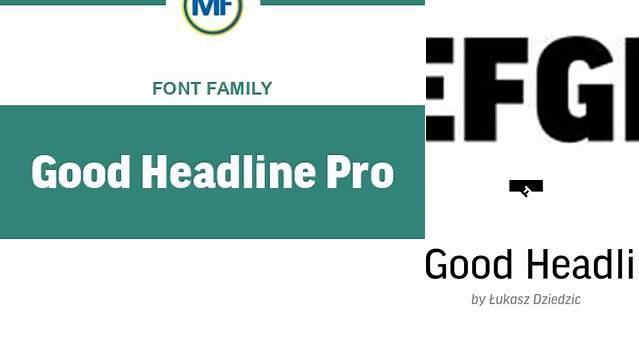
Hey guys! If you're on the hunt for a killer font that'll make your headlines pop, you've landed in the right spot. We're diving deep into the world of Good Headline Pro, a font that's become a favorite for designers and marketers alike. We'll cover everything from where to snag a free download to how to use it effectively in your projects. So, buckle up, because we're about to unlock the secrets to typography that grabs attention! This article is your go-to resource for all things related to Good Headline Pro – including how to ensure you're getting a legit, safe download. It is also the perfect way to make your content easily readable and SEO-friendly. This is a thorough guide to the font itself, its features, and how it can revolutionize your design projects. We will discuss the importance of choosing the right font, particularly when it comes to headlines, and show you why Good Headline Pro is an excellent choice. Whether you are a seasoned designer or just starting out, this guide will help you understand and use this versatile font to its full potential. We'll navigate the legal aspects of font downloads, discuss licensing, and share tips on how to ensure you're getting the font safely. Because, let's be real, nobody wants to accidentally download something nasty when they are looking for a beautiful font. Moreover, this guide will equip you with the knowledge and resources to make the most of this font and elevate your design work. We will cover the best practices and considerations for using Good Headline Pro in various design projects. Finally, we'll help you understand how to install and use the font on different platforms. From understanding the features of Good Headline Pro to making informed decisions about its use, we've got you covered. So, let's get started with this comprehensive guide to Good Headline Pro!
What is Good Headline Pro? Unveiling the Font's Essence
Alright, let's get down to the basics. Good Headline Pro isn't just any font; it's a design powerhouse specifically crafted for headlines and display text. Think of it as the rockstar of the font world, designed to command attention and leave a lasting impression. Its bold, clean lines and modern aesthetic make it perfect for grabbing eyeballs on websites, social media, posters, and any other place where you need a headline that speaks volumes. The core of Good Headline Pro lies in its versatility. It's a font that adapts beautifully to different design styles, whether you're aiming for a minimalist look or something more vibrant and playful. Its readability is another major plus, ensuring that your message is clear and easy to understand, even at a large size. We'll delve into the specific features, but understand that it's a font built to perform. Good Headline Pro shines when it comes to creating a strong visual impact. Designed with readability in mind, it ensures that your message is not just seen, but also understood. Its clean and modern design makes it suitable for various applications, from website headlines to advertising materials. Understanding these aspects will give you a solid foundation for making the most of the font. The key is in its design; it's not just about aesthetics. It also makes your content stand out. So if you're serious about creating headlines that resonate, Good Headline Pro should definitely be on your radar. Its ability to communicate effectively and look great doing it is a key feature. It's not just a font; it's a statement, and a useful tool for any designer looking to create compelling visuals. It is the perfect example of form meeting function, ensuring your message is both stylish and effective.
Now, let's peek under the hood and check out what makes Good Headline Pro tick. This font boasts some killer features that make it a top choice for designers. Here are some of the standout characteristics:
- Boldness: As the name suggests, it's all about making a statement. This font is typically offered in a range of weights, from regular to extra bold, allowing you to control the visual weight of your headlines. This helps to make sure your headline stands out, and that your message is clear.
- Clarity: Readability is key, and Good Headline Pro excels here. Its clean and clear design ensures that your text is easy to read, even at larger sizes. It allows your audience to absorb information quickly and efficiently.
- Modern Aesthetic: It has a contemporary look that feels fresh and up-to-date. This is important for modern design. It makes your designs look relevant, and is perfect for projects that require a clean, professional feel.
- Versatility: This font plays well with others! It can be paired with a wide range of fonts, both serif and sans-serif, making it a versatile tool for various design projects. This flexibility allows you to create cohesive designs. This is essential for designers looking to build their projects with different styles.
- Multiple Weights and Styles: Often available in various weights (light, regular, bold, etc.) and styles (italic, condensed), giving you flexibility to customize your headlines and create visual interest. These different options allow you to tailor your headlines to your specific needs. They can also help in creating visual interest.
These features collectively make Good Headline Pro a must-have in your font library. Whether you're designing a website, creating marketing materials, or crafting social media graphics, this font gives you the power to create headlines that capture attention and leave a lasting impact. The modern, clean aesthetic ensures your designs are always on-trend and visually appealing. Understanding these key features helps you to effectively use the font in your projects.
- Personal vs. Commercial Use: This is the big one. Personal use licenses let you use the font for non-commercial projects, like personal blogs, school projects, or hobby-related designs. Commercial licenses allow you to use the font for business purposes, such as marketing materials, websites, and client projects.
- Free vs. Paid Licenses: Free fonts often have limited licenses. They might be for personal use only, or they might have restrictions on how many times you can use the font. Paid licenses are usually more flexible, offering a broader range of usage rights. You might also have to get a license to use the font in logos or for other commercial purposes.
- EULA (End-User License Agreement): Always read the EULA before you download or use a font. It's the document that spells out the specific terms of the license. It will clarify what you can and can't do with the font.
Commercial Use Cases and Considerations
If you're planning to use Good Headline Pro for commercial projects, here are some things to keep in mind:
- Check the Fine Print: Does your license cover website use, print materials, social media, or all of the above? Make sure the license aligns with your intended use.
- Multiple Licenses: You might need to purchase a license for each user or each device that will be using the font. If you're using it in an agency setting, ensure everyone has the appropriate license.
- Embedding: If you're embedding the font on your website, check the license to see if it allows this. Some licenses have restrictions on web font usage.
- Logos: Using a font in a logo often requires a special license, or at least, you will need to confirm if the license allows for logo use. It is always best to ensure that you have the rights to use the font in the way you plan to. This is a super important area, as commercial use cases are heavily dependent on proper licensing.
Navigating font licensing can be tricky, but it's essential to avoid legal troubles. Always read the fine print and make sure your use complies with the terms of the license. If you're unsure, it's best to err on the side of caution and seek legal advice.
How to Install and Use Good Headline Pro
Alright, you've downloaded your Good Headline Pro font (hopefully safely!), now it's time to get it working on your computer. Installation and usage steps can differ depending on your operating system and the design software you're using, but here's a general guide:
Installation Steps
- Windows: After downloading the font, right-click on the font file (usually a .ttf or .otf file) and select "Install". You can also double-click the file and click on the "Install" button at the top. This will install the font system-wide, making it available in all your applications.
- macOS: Double-click the font file. A font preview window will open, and you'll see an "Install Font" button. Click this button, and the font will be installed in your Font Book app, making it available for use in all your apps.
Using Good Headline Pro in Design Software
Once the font is installed, you'll need to access it in your design software. Here's how it usually works:
- Find the Font Menu: Open your design software (Adobe Photoshop, Illustrator, Canva, etc.) and look for the text tool. This will be where you can change the font. Most programs have a font selection drop-down menu.
- Search for the Font: Type "Good Headline Pro" in the font search bar. If you installed the font correctly, it should appear in the list. Select the font to start using it.
- Adjust Font Size and Style: Experiment with the font size, weight, and style to create the perfect look for your headlines. You can use the software's text formatting tools to customize your text. Make sure your design is exactly as you would like it. You should tailor the size and style.
Troubleshooting Tips
If you're having trouble getting Good Headline Pro to appear in your software, try these troubleshooting steps:
- Restart the Software: Sometimes, you need to restart the software for the new font to show up. Close and reopen the program.
- Check Font Cache: In some cases, the software might be using an old font cache. Try clearing the cache, but be careful, as the steps vary across programs. If this is the problem, try a software restart.
- Verify the Installation: Double-check that the font is installed correctly in your system's font manager (Font Book on macOS or Control Panel > Fonts on Windows). Ensure your font file is valid, as corrupt files are difficult to work with.
- Check for Conflicts: Make sure there are no font conflicts. If there are duplicate font files, try removing them. This is one of the most common errors when installing fonts.
With these steps, you should be able to install and use Good Headline Pro easily in your design projects. And, by following the above tips and tricks, you can make sure that you've done everything to install the font correctly.
Best Practices for Using Good Headline Pro
Now that you've got the font installed, let's talk about how to make the most of Good Headline Pro in your designs. It's not just about picking a pretty font; it's about using it strategically to enhance your message and make it stand out. Here are some best practices:
Strategic Font Pairing
- Complementary Fonts: Pair Good Headline Pro with a complementary font for body text. A good rule of thumb is to choose a sans-serif font for headlines and a serif font for body text, or vice versa. This creates contrast and visual interest. A contrasting style is useful, and your audience will benefit from it. Pairing a good font with a well-chosen complement can improve clarity, readability and user experience.
- Consider Font Weights and Styles: Use different weights (bold, regular, light) of Good Headline Pro and its paired fonts to create visual hierarchy. Bold headlines can grab attention while regular text can provide a more understated feel. This will ensure your message is clear. Remember that font weights can enhance design. Also, be certain that the style fits your project.
- Avoid Overuse: Don't overuse Good Headline Pro. It's designed to be a headline font, so limit its use to headlines and display text. Overusing the font can dilute its impact. Sometimes, less is more. Choose only the most important areas.
Optimizing Readability
- Size Matters: Make sure your headlines are large enough to be easily read. The appropriate size depends on the context, but generally, headlines should be larger than body text.
- Line Spacing: Adjust the line spacing (leading) to improve readability. Too little space can make the text look cramped, while too much can make it feel disconnected.
- Kerning and Tracking: Pay attention to kerning (the space between individual characters) and tracking (the overall spacing of a word or phrase). Proper kerning and tracking ensure that the text is visually appealing. Sometimes, adjusting kerning and tracking can make a huge difference.
Design Considerations
- Context: Consider the context of your design. Is it a website, a poster, or a social media post? The font's use should align with the overall design theme.
- Color: Use colors that complement the font and the overall design. The right color combinations can make your headlines pop. Avoid colors that make text hard to read.
- Whitespace: Use whitespace to create visual breathing room around your headlines. Whitespace helps draw attention to your text.
By following these best practices, you can use Good Headline Pro effectively to create visually compelling headlines that grab attention and convey your message clearly. Always test your designs and experiment to find what works best for your specific needs. Design is all about balance and good choices. With these suggestions, you can make sure your headlines stand out.
Conclusion: Elevate Your Designs with Good Headline Pro
Alright, folks, we've covered a lot! We've gone through everything from the core features of Good Headline Pro to the best ways to find a free download, plus licensing and usage, installation, and best practices. Remember, choosing the right font is a crucial step in any design project. Good Headline Pro offers a potent mix of style, readability, and versatility, making it a go-to choice for designers looking to create impactful headlines. It is an excellent way to make your headlines stand out. Whether you're working on a website, marketing materials, or social media graphics, this font can significantly enhance your designs.
By understanding its features, downloading it safely, following licensing guidelines, and implementing the best practices we've discussed, you can harness the full power of Good Headline Pro. So, go out there, experiment with this amazing font, and create headlines that not only capture attention but also tell a story. Go and bring your ideas to life! Now, go forth and create some awesome designs. And remember, always double-check those licenses and stay safe while downloading! Happy designing!